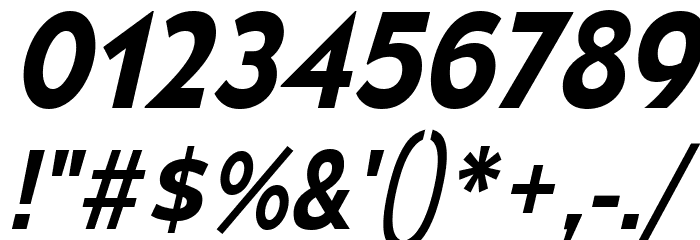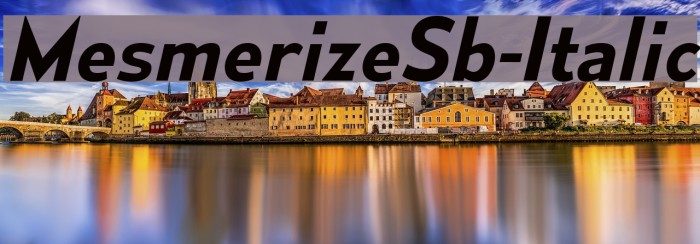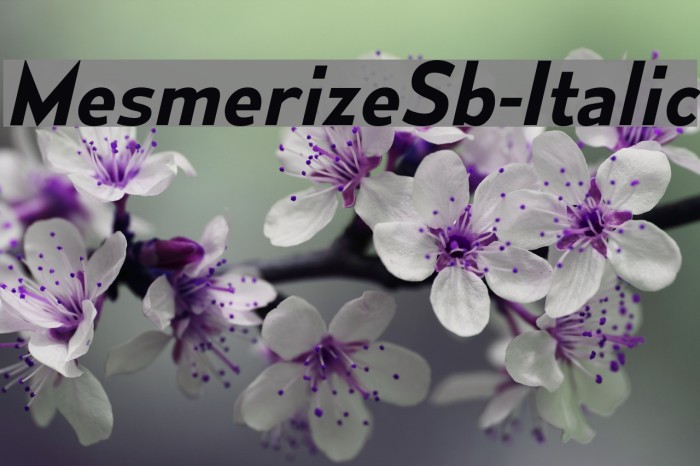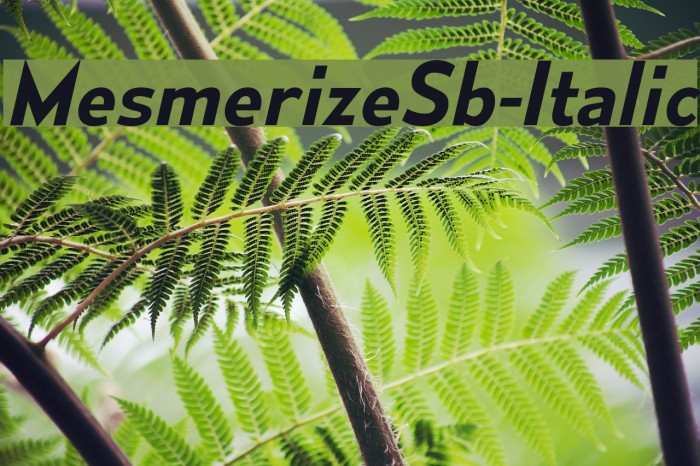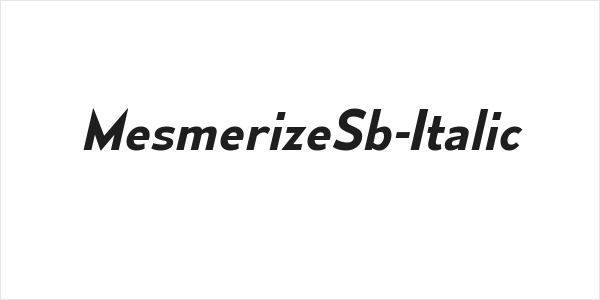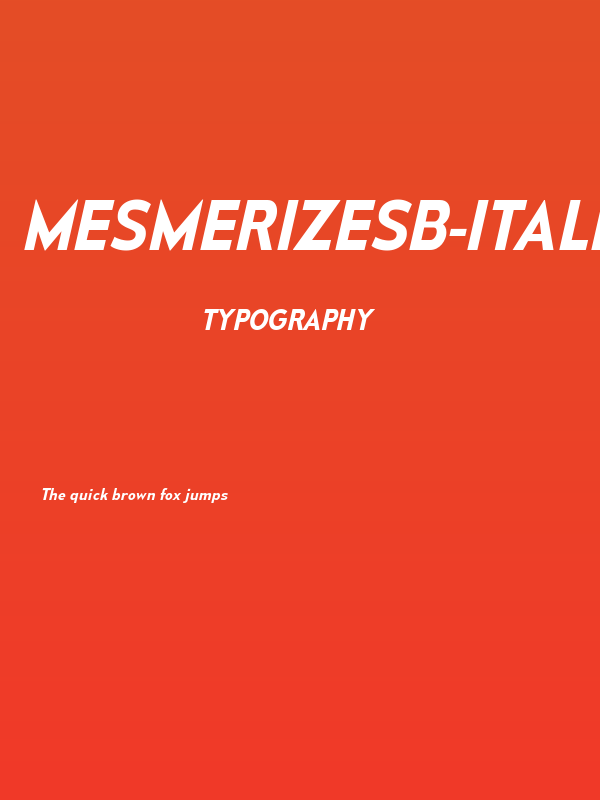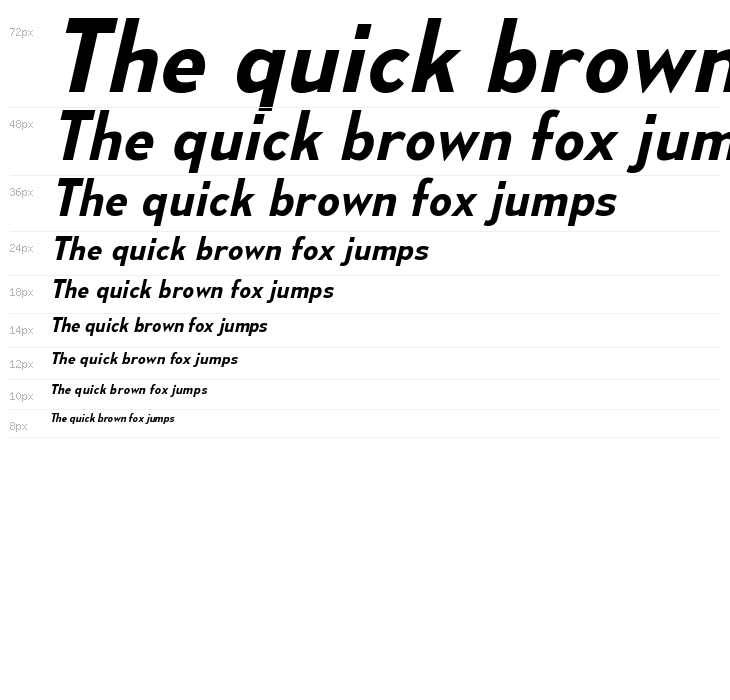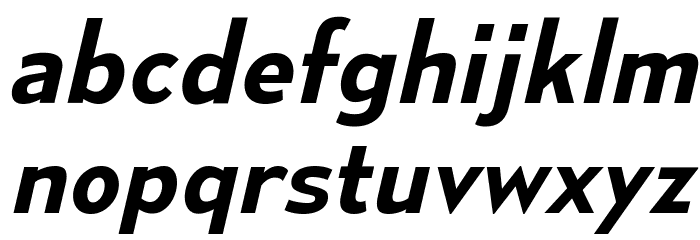
MesmerizeSb-Italic Font
MesmerizeSb-Italic Description
This font features a sleek and modern italic style with a subtle slant, giving it a dynamic and forward-moving appearance. The characters are bold and well-defined, with a consistent stroke width that maintains readability across various sizes. The uppercase letters are strong and commanding, while the lowercase letters offer a smooth and cohesive flow. Numbers are clear and distinct, making them suitable for both display and text purposes. Special characters are well-integrated, ensuring versatility in design applications. The overall design is clean and professional, making it ideal for contemporary projects.
| Proposed Projects | Ideal for branding, advertising, headlines, and modern web design. |